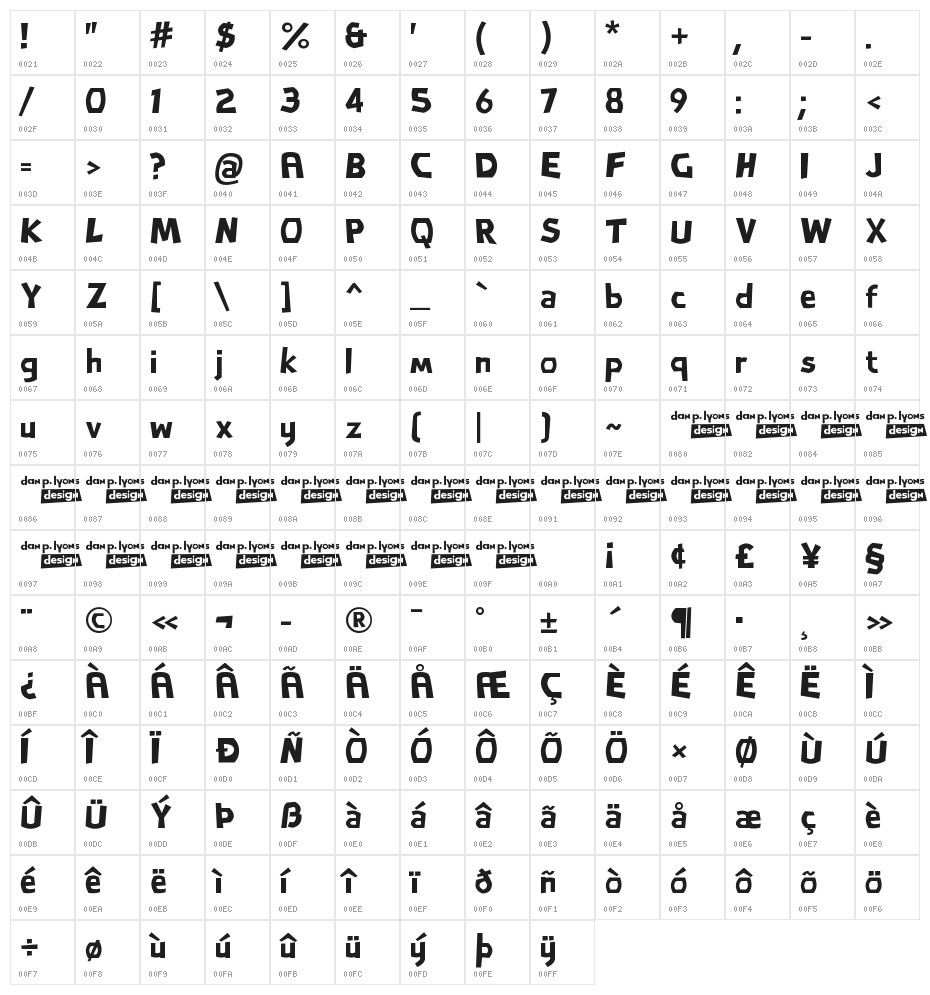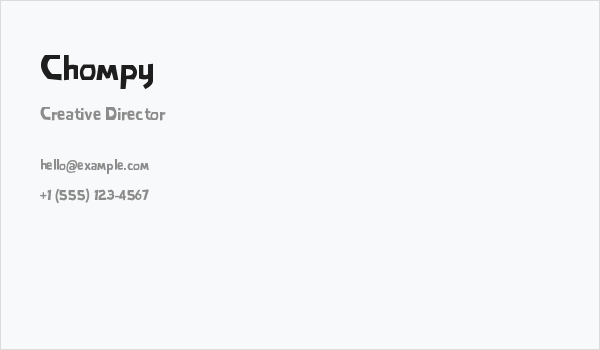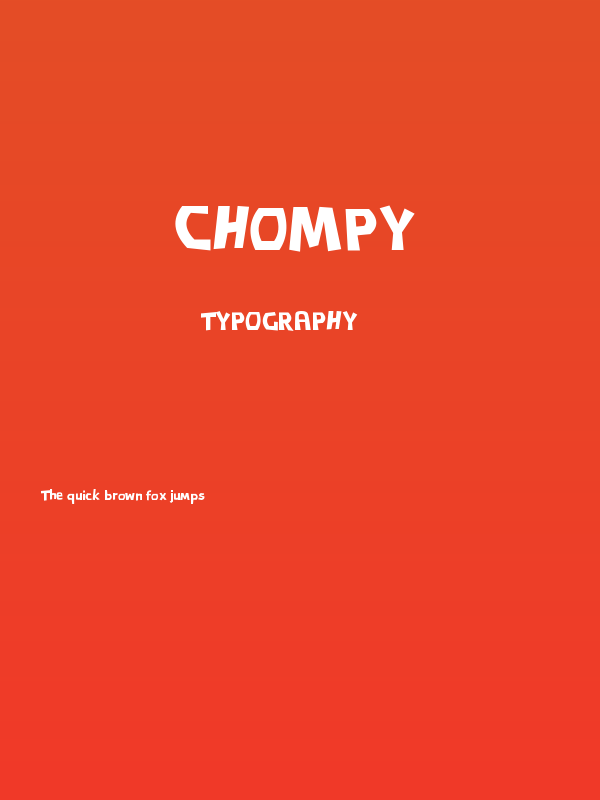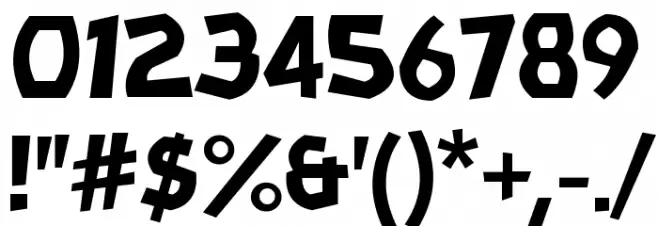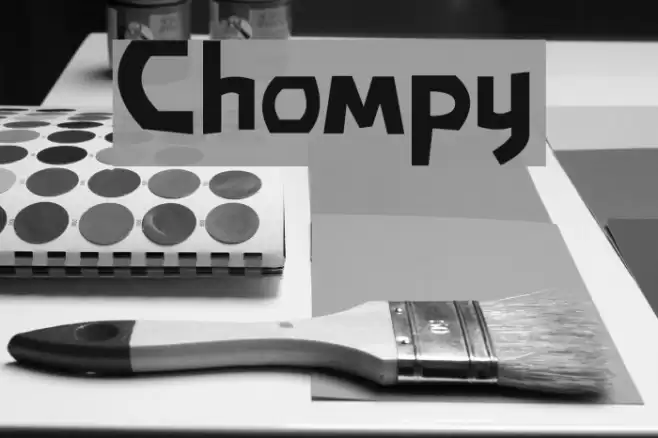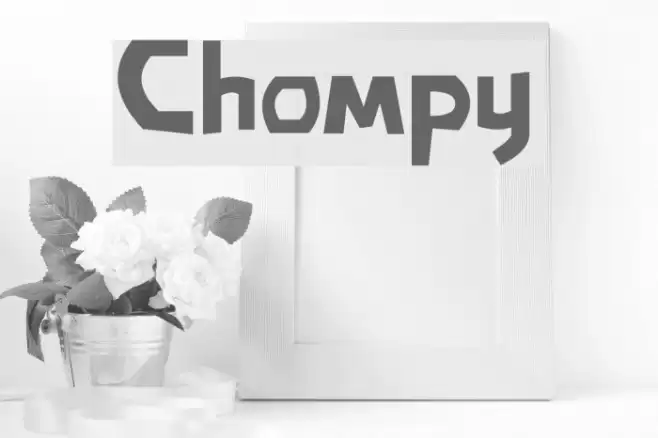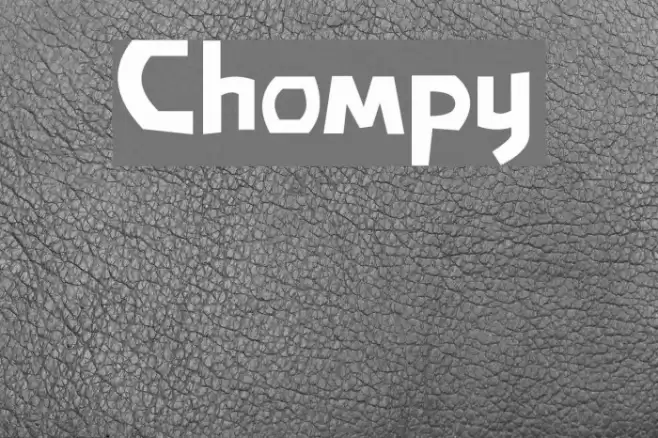
Chompy Font
Chompy Description
This font features a bold and playful style with a slightly irregular and jagged appearance, giving it a dynamic and energetic feel. The characters have a strong presence with thick strokes and uneven edges, creating a sense of movement and spontaneity. The uppercase and lowercase letters maintain a consistent weight, while the numbers and special characters follow the same lively design. This font is ideal for projects that require a fun and eye-catching look, such as children's books, comic strips, or playful branding.
| Overall Style | Playful, Energetic |
| Proposed Projects | Ideal for children's books, comic strips, playful branding, and eye-catching posters. |